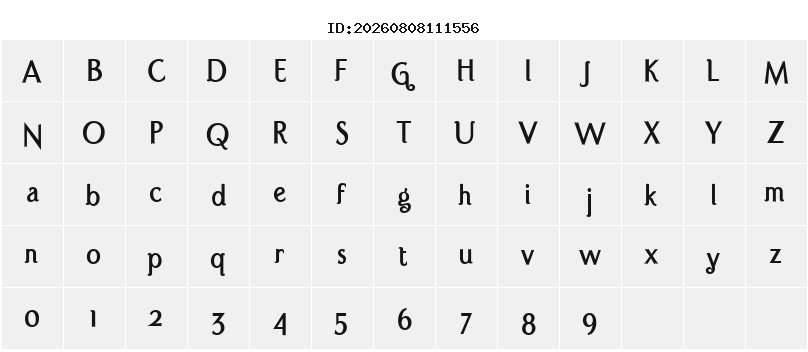
• Font Name: Port Credit
• Designer: Ray Larabie
• Manufacturer: Larabie Fonts
About Port Credit.ttf
Port Credit.ttf is a modern, elegant sans-serif font designed for ultimate readability and visual harmony. Perfect for branding, headlines, web design, and print materials.